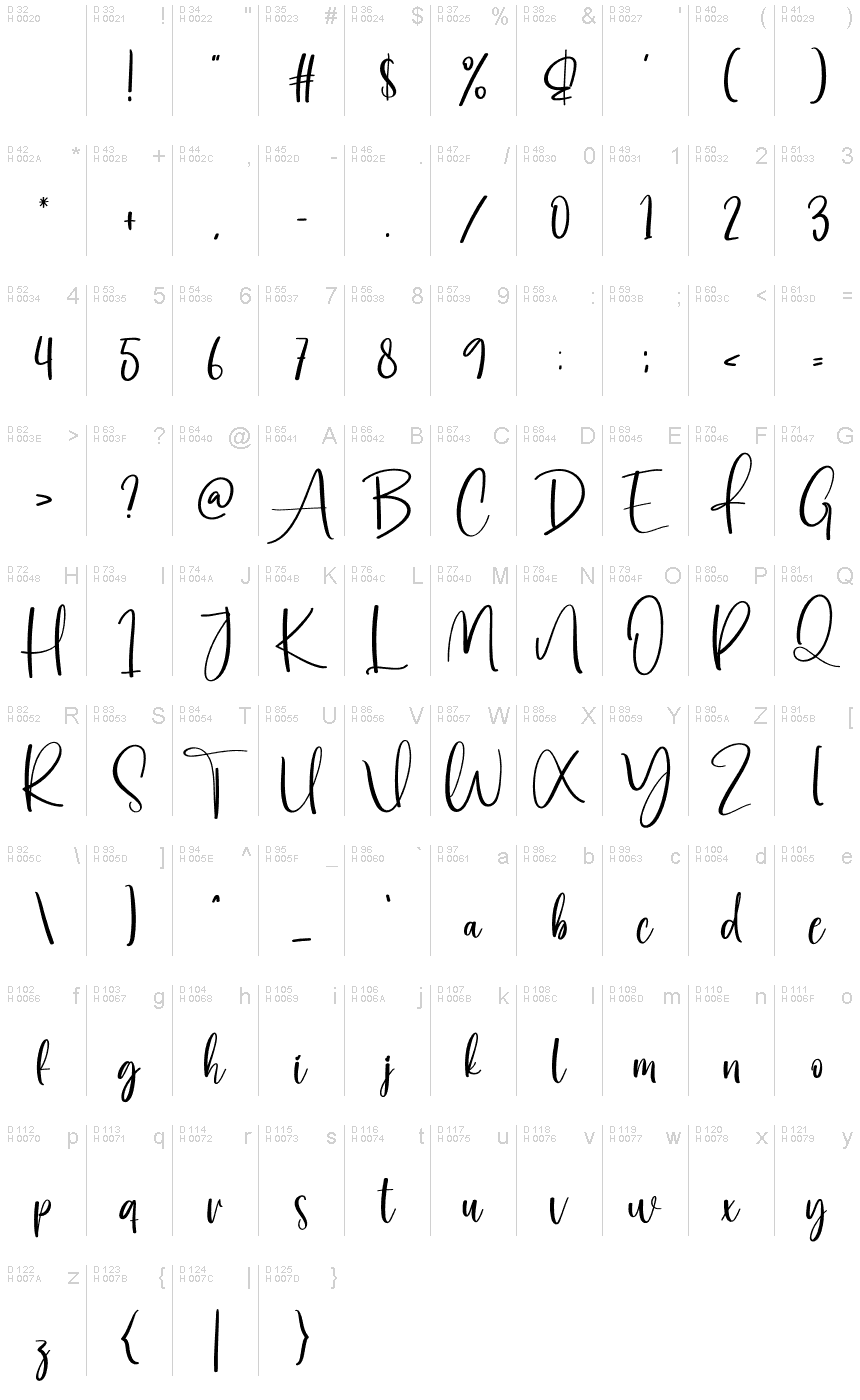
Writing
Writing, a handwritten font crafted by Scratchones, carries the charm of authentic penmanship with its semi-light weight and fluid contours. Its unpretentious elegance resonates through each character, offering a personal touch that feels both familiar and distinctive. The graceful flow of Writing's letters invites a casual yet polished aesthetic that can effortlessly adapt to various creative endeavors.
Whether it's for branding, invitation cards, or editorial designs, this font establishes an intimate connection with its audience. The handwritten style of Writing brings forth an organic feel that is ideal for projects aiming to convey warmth and individuality. Its semi-light weight ensures legibility while maintaining an air of lightness, making it as versatile as it is visually appealing.
In essence, Writing by Scratchones infuses your message with genuineness and sophistication—perfect for when you need your words to be not just seen, but felt.